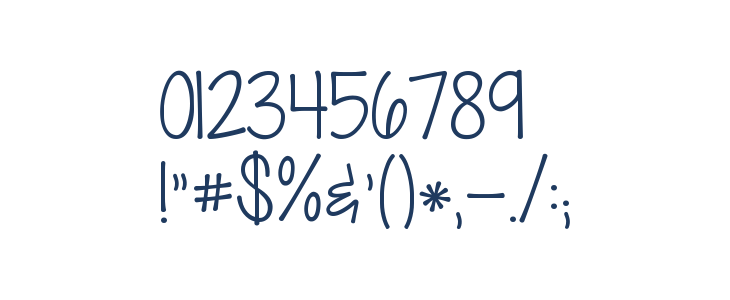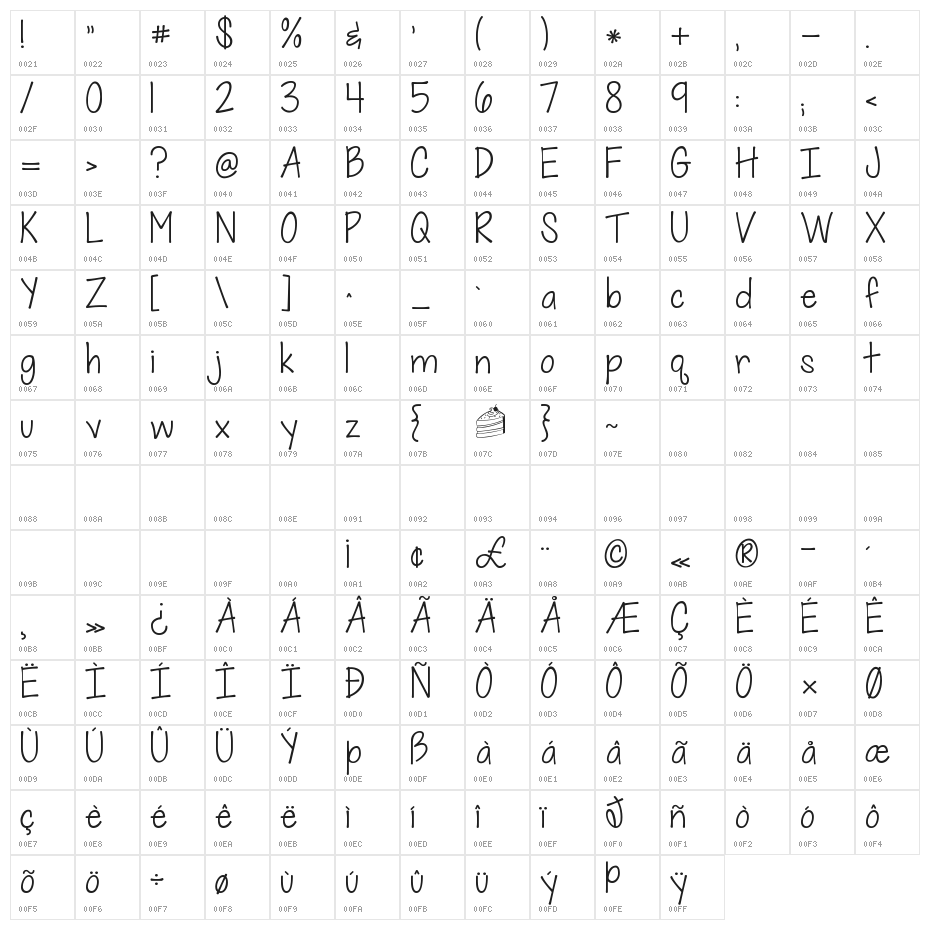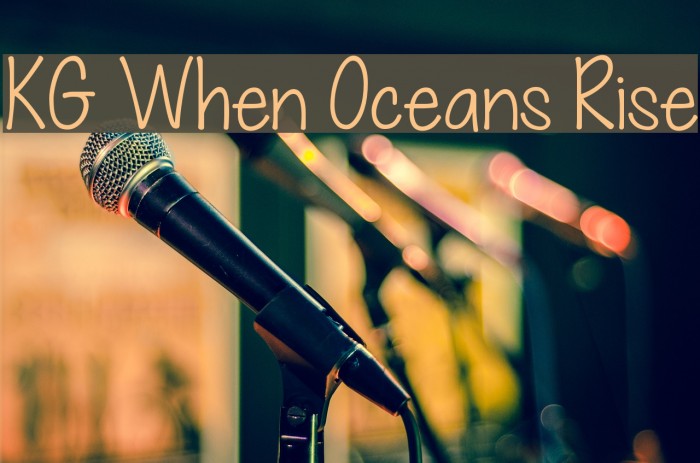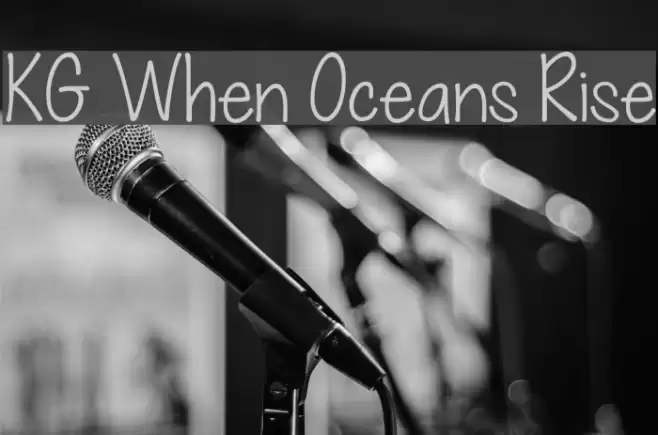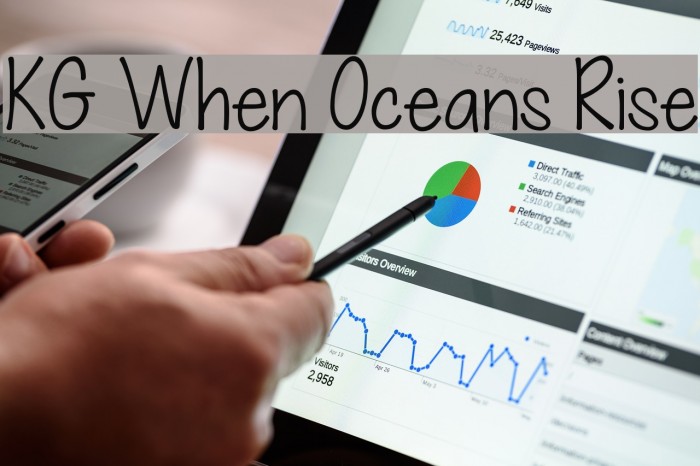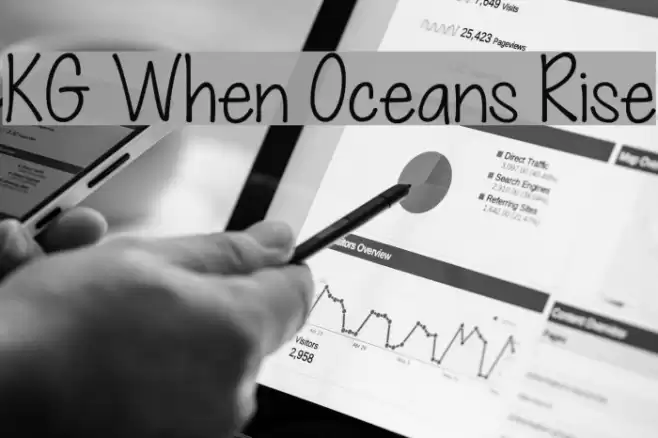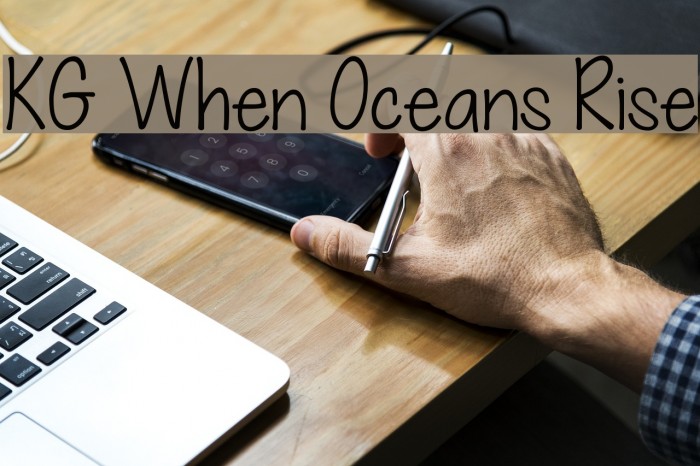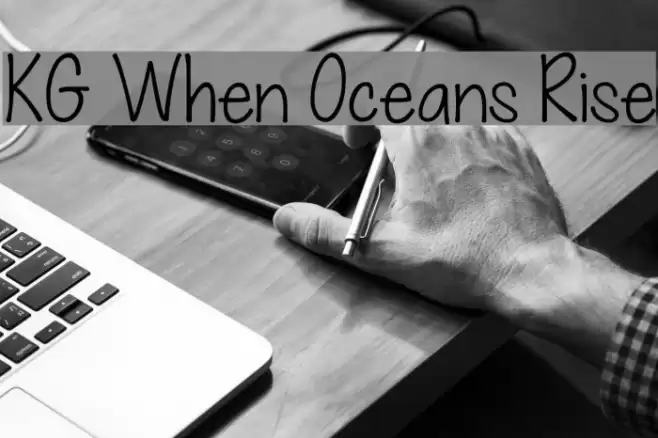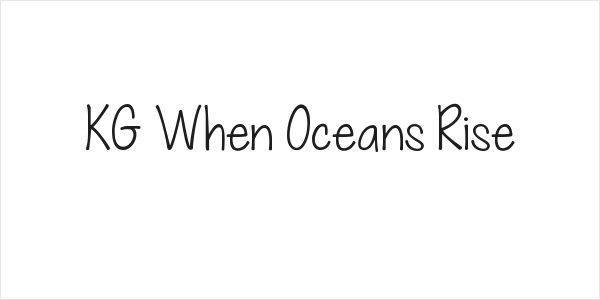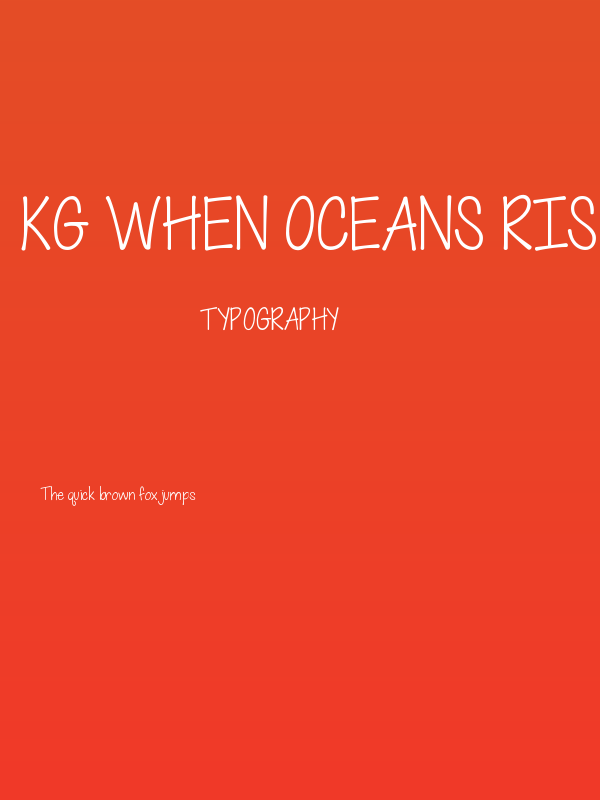
KG When Oceans Rise Font
KG When Oceans Rise Description
This playful and casual font features a handwritten style with a slightly uneven baseline, giving it a friendly and approachable appearance. The characters are rounded and smooth, with a consistent stroke width that maintains readability. The uppercase letters are tall and narrow, while the lowercase letters are more rounded, creating a nice contrast. The numerals and special characters are designed to match the overall style, ensuring a cohesive look across all text. This font exudes a sense of warmth and informality, making it suitable for projects that require a personal touch.
| Use Case | Headlines, Informal text, Personal projects |
| Proposed Projects | Ideal for greeting cards, children's books, personal blogs, and informal branding. |